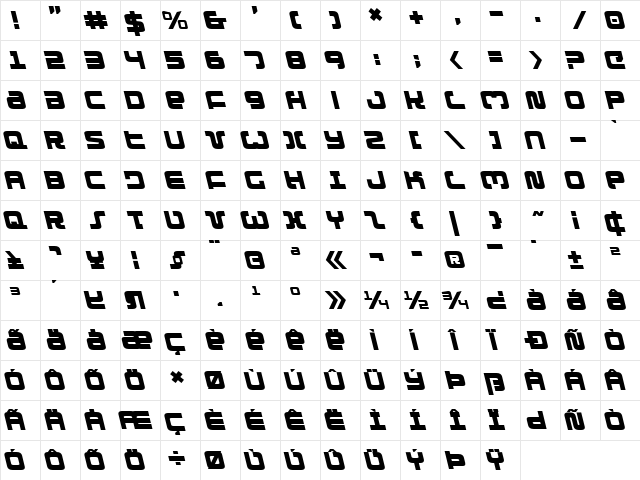
Exedore Leftalic Italic
Design Context for Exedore Leftalic Typeface
Exedore Leftalic offers clean, dependable letterforms without strong stylistic allegiance, making it a practical choice for designers who need flexibility. Its italic angle brings a sense of urgency and motion to the letterforms.
Pro Tip: Use Exedore Leftalic for emphasis, pull quotes, and subheadings where its slanted energy can add rhythm to the layout.